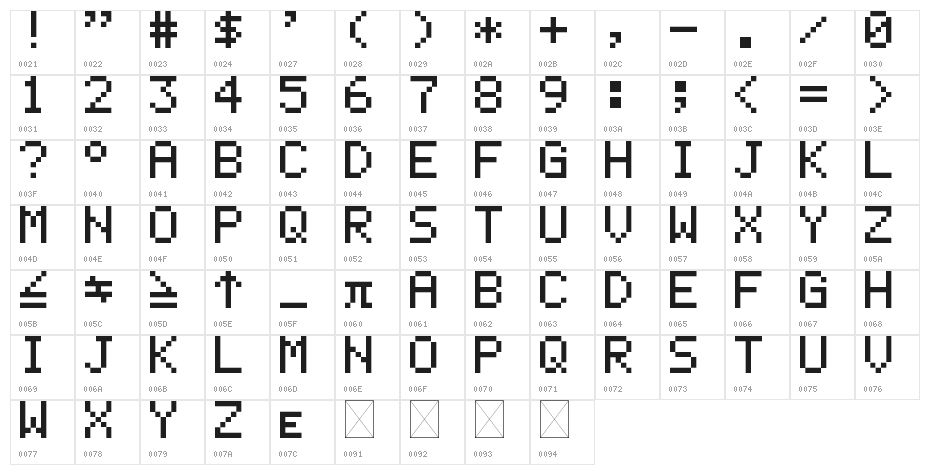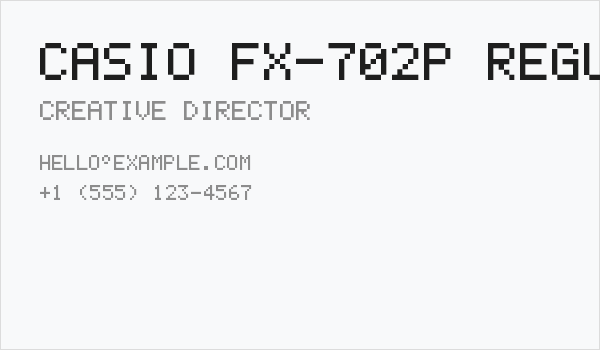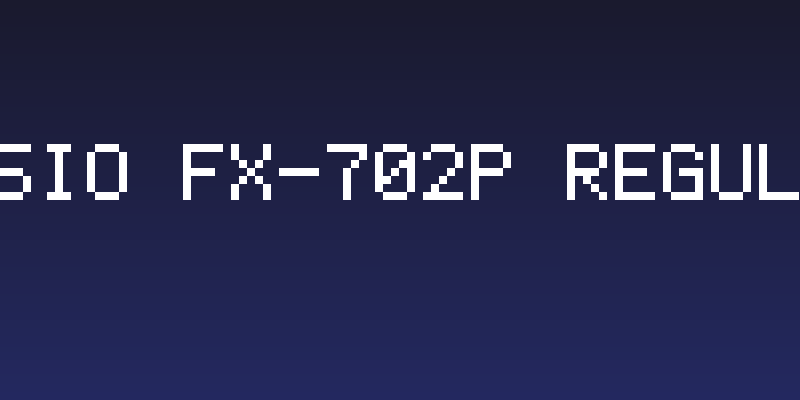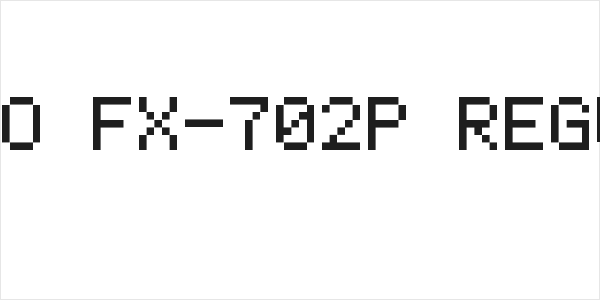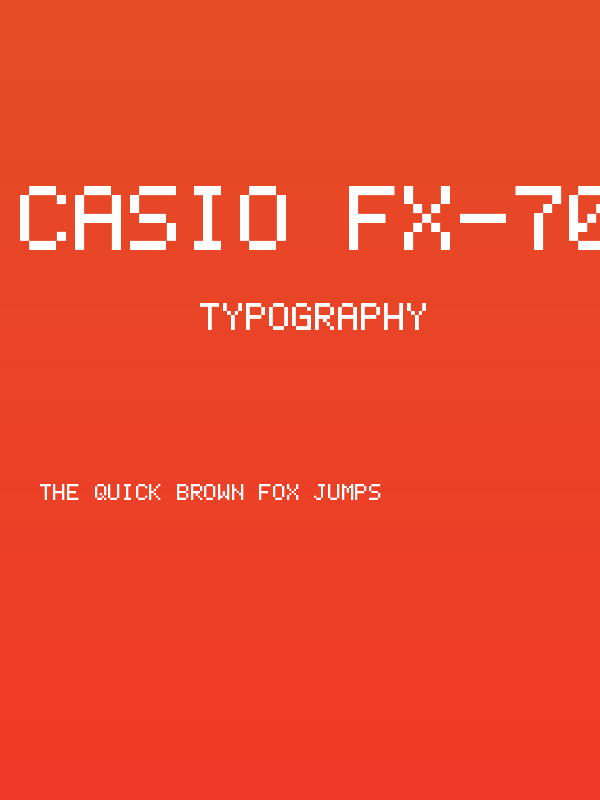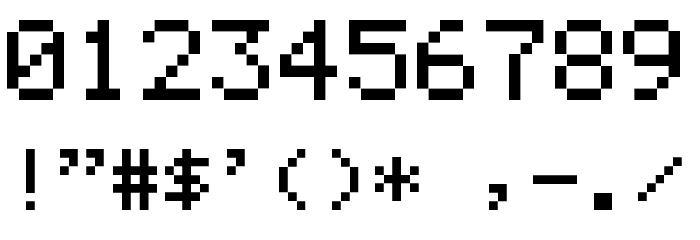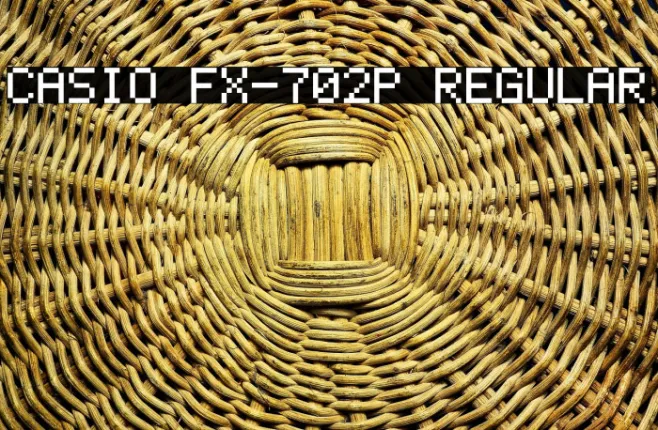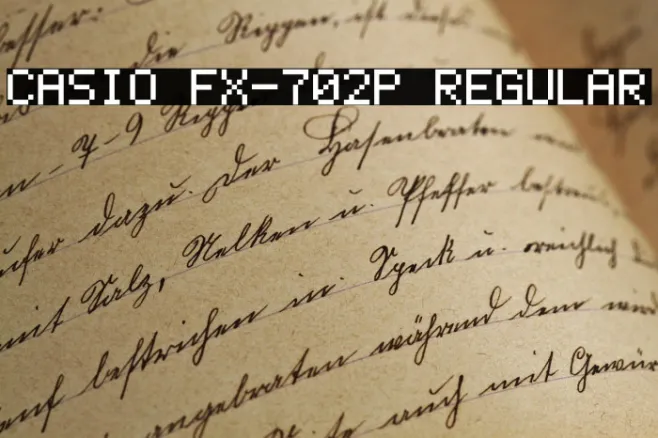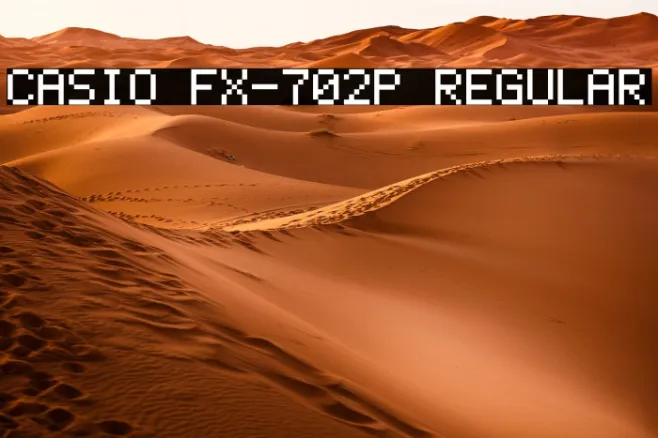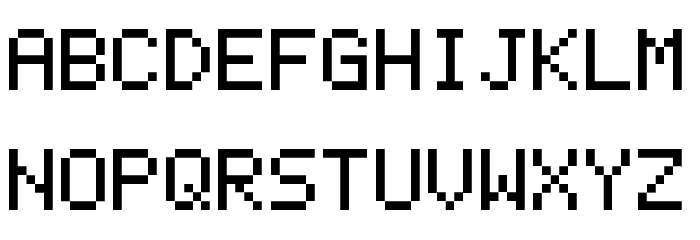
Casio FX-702P Regular Font
Casio FX-702P Regular Description
This font features a pixelated, monospaced design reminiscent of early digital displays and classic computing interfaces. Each character is constructed with a grid-like precision, giving it a retro, tech-inspired aesthetic. The uniformity in character width and height contributes to its structured appearance, making it ideal for environments where clarity and consistency are paramount. The font's simplicity and geometric form evoke a sense of nostalgia, suitable for projects that aim to capture the essence of vintage technology.
| Use Case | Digital displays, coding, retro designs. |
| Proposed Projects | Ideal for retro-themed designs, digital art, coding environments, and projects that require a vintage tech vibe. |